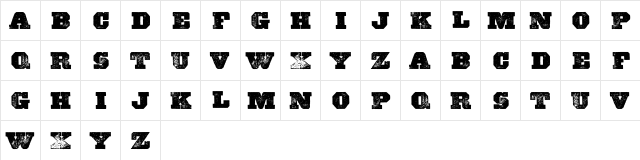
Ashwood Extra Bold WF Regular
Design Context for Ashwood Extra Bold WF Typeface
Ashwood Extra Bold WF echoes the hand-painted signage and woodblock typography of the American frontier, with a warm, rugged personality. Its bold stroke weight gives it real presence on the page.
A natural fit for craft spirits, ranch branding, rodeo events, and Americana-inspired design work.
Font Pairing: Combine Ashwood Extra Bold WF with a simple slab or neutral sans — period-accurate companions reinforce the vintage feel without competing for attention.
Pro Tip: Use Ashwood Extra Bold WF for short, impactful bursts of text — it shines in poster headlines and product names rather than extended copy.